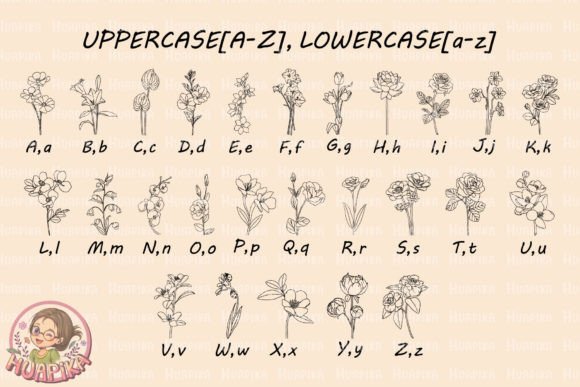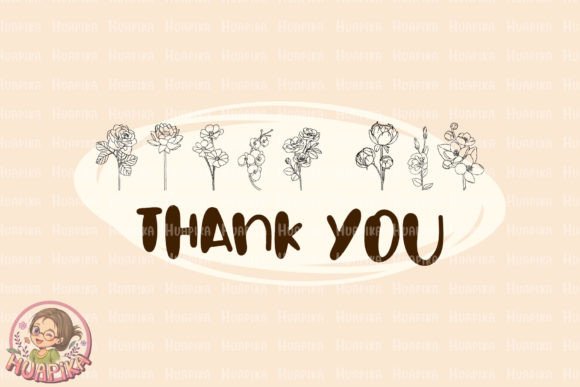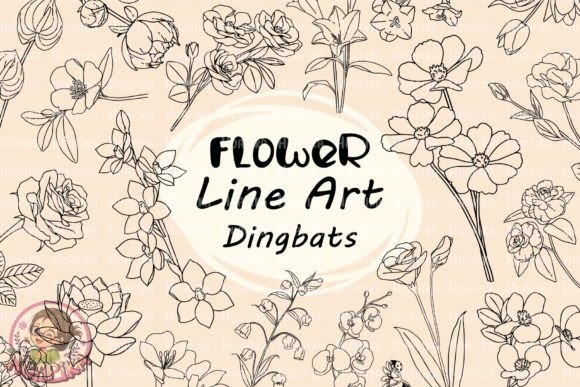
Introducing Flower Line Art Font: The Perfect Addition to Your Design Collection
Are you a designer, crafter, or DIY enthusiast looking for a unique and versatile font to elevate your creative projects? Look no further than Flower Line Art Font, a charming botanical dingbat font that’s perfect for a wide range of applications. In this article, we’ll explore the features and benefits of Flower Line Art Font, and show you how it can add a touch of elegance and whimsy to your designs.
What is Flower Line Art Font?
Flower Line Art Font is a carefully crafted, hand-drawn font that features intricate line art illustrations of flowers, leaves, and other botanical elements. This adorable font is designed to bring a touch of nature and beauty to your designs, making it perfect for projects that require a delicate, whimsical feel.
Key Features of Flower Line Art Font
- Cute and Botanical: Flower Line Art Font features adorable, hand-drawn illustrations of flowers, leaves, and other botanical elements, making it perfect for designers and crafters who love nature and botanicals.
- Dingbat Font: This font is a dingbat font, which means it’s made up of symbols and illustrations rather than traditional letters and numbers.
- Versatile: Flower Line Art Font can be used for a wide range of projects, including logos, wall art, signs, cards, art prints, t-shirts, coloring pages, and more.
Uses for Flower Line Art Font
Flower Line Art Font is a versatile font that can be used in a variety of creative projects. Here are some ideas to get you started:
- Logos and Branding: Use Flower Line Art Font to create a unique and memorable logo for your business or brand.
- Wall Art and Prints: Create beautiful wall art and prints featuring Flower Line Art Font and your favorite botanical illustrations.
- Signs and Posters: Use this font to create eye-catching signs and posters for events, promotions, and more.
- Cards and Stationery: Add a touch of elegance and whimsy to your cards and stationery with Flower Line Art Font.
- T-Shirts and Apparel: Use this font to create unique and stylish designs for t-shirts, hoodies, and other apparel.
- Coloring Pages: Create fun and intricate coloring pages featuring Flower Line Art Font and your favorite botanical illustrations.
Benefits of Using Flower Line Art Font
There are many benefits to using Flower Line Art Font in your designs. Here are a few:
- Unique and Eye-Catching: This font is sure to grab attention and add a touch of elegance and whimsy to your designs.
- Versatile: Flower Line Art Font can be used in a wide range of projects, making it a great addition to your design collection.
- High-Quality: Flower Line Art Font is a high-quality font that’s designed to produce crisp, clear results at any size.